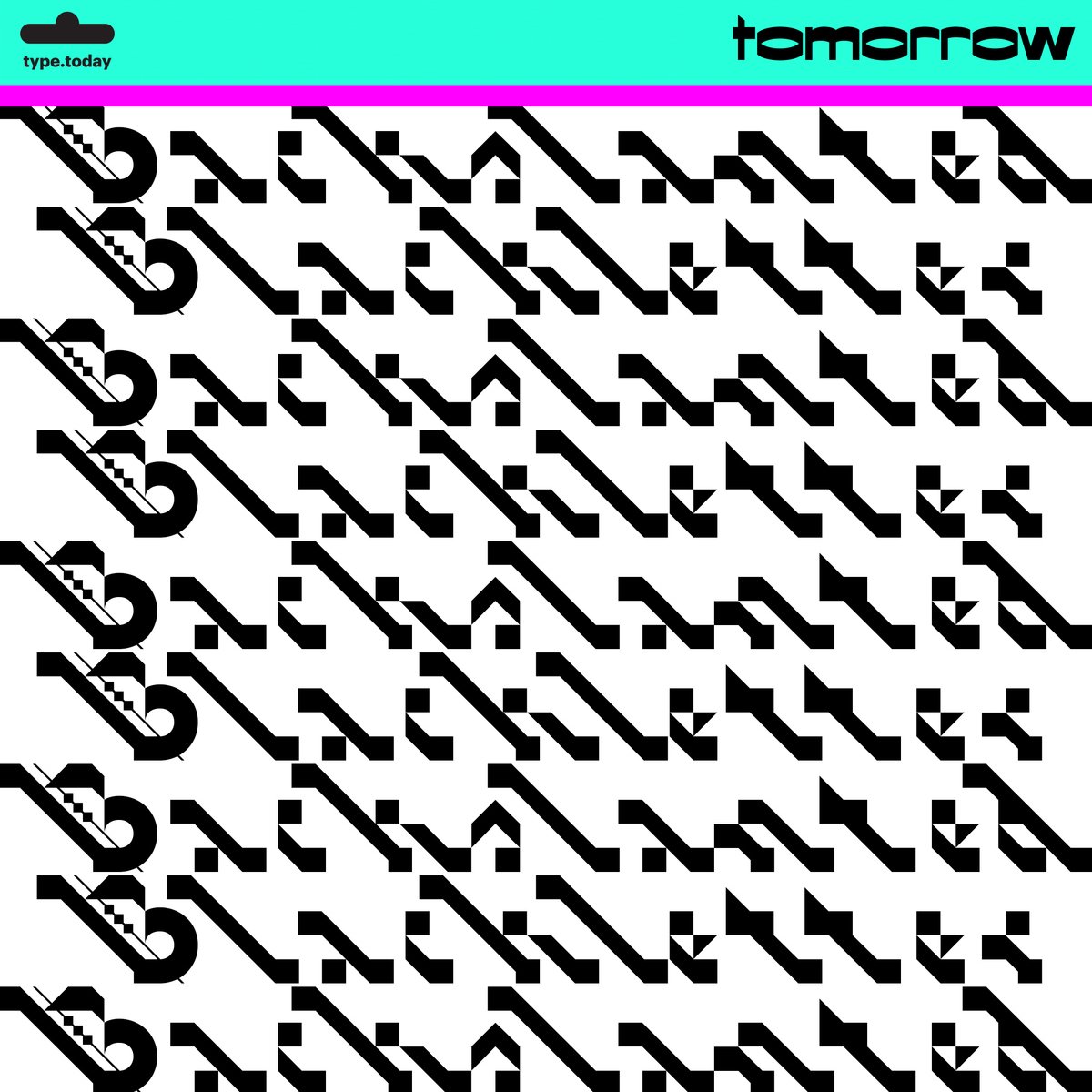
The Backslanted family—more like an ongoing series of backslanted typefaces than a conventional type family—has a new addition. This time, it’s a pseudo-blackletter.
Backslanted began in 2022. It was conceived both as an exploration of backslanted forms defined by their drawing tools (a ruler and a driver), and as a response to the feeling of being overturned.
There are already four Backslanted typefaces available in our shop, and the series is still ongoing.